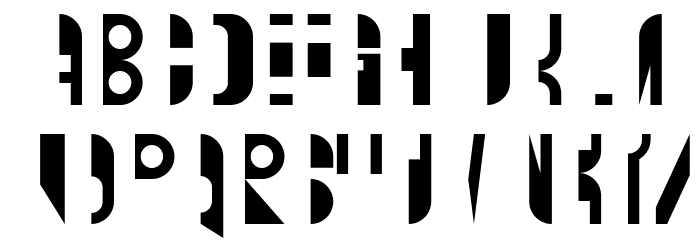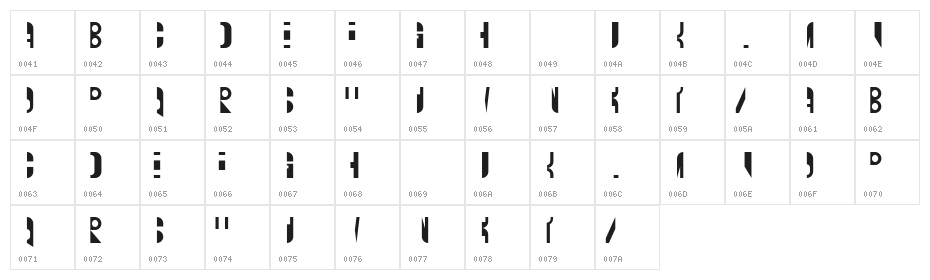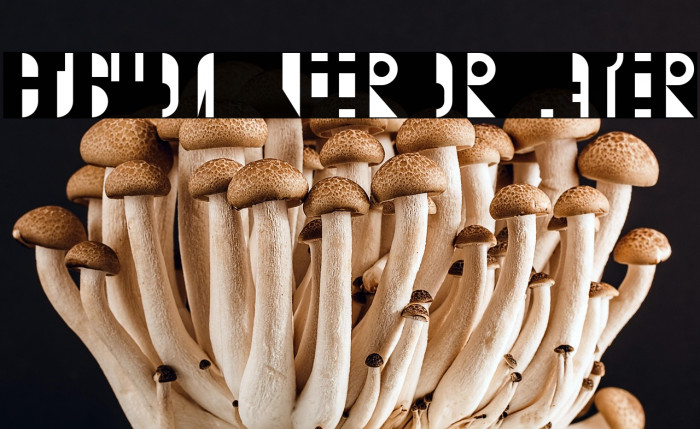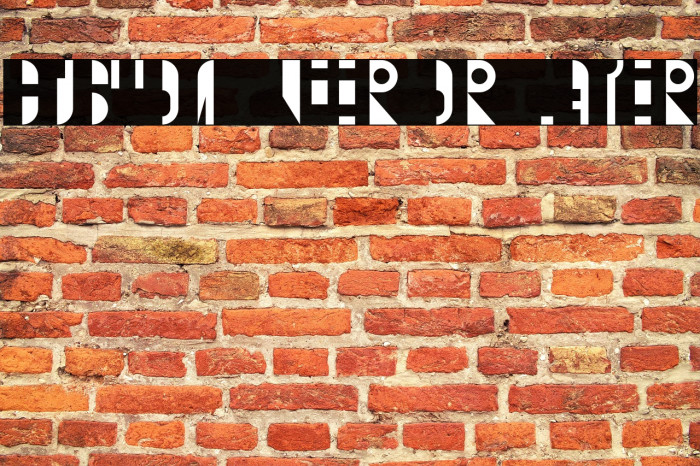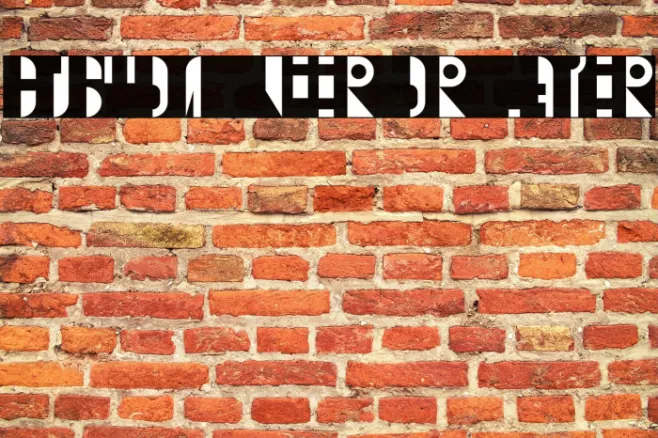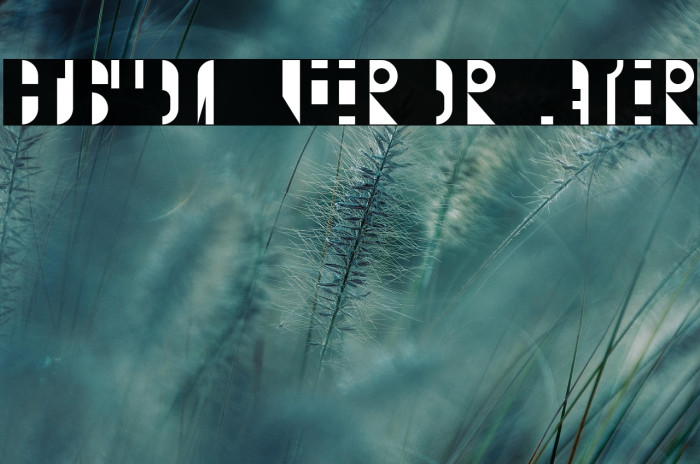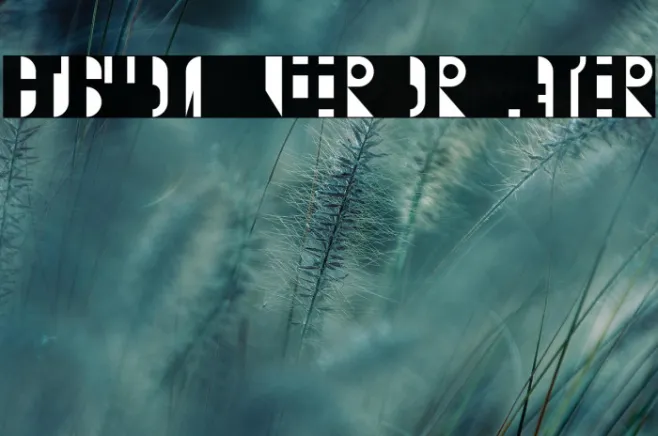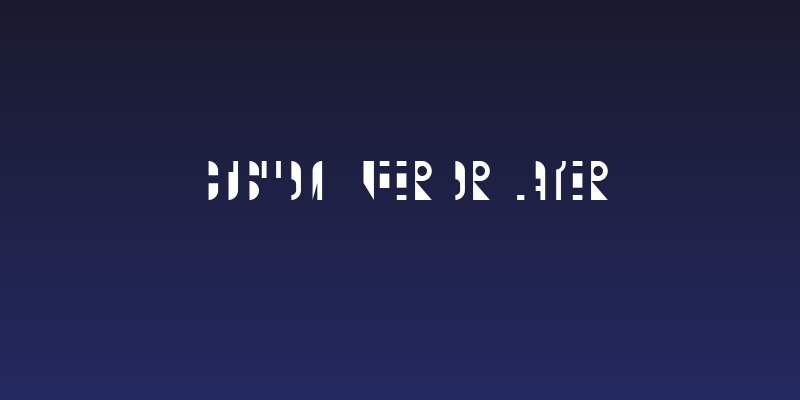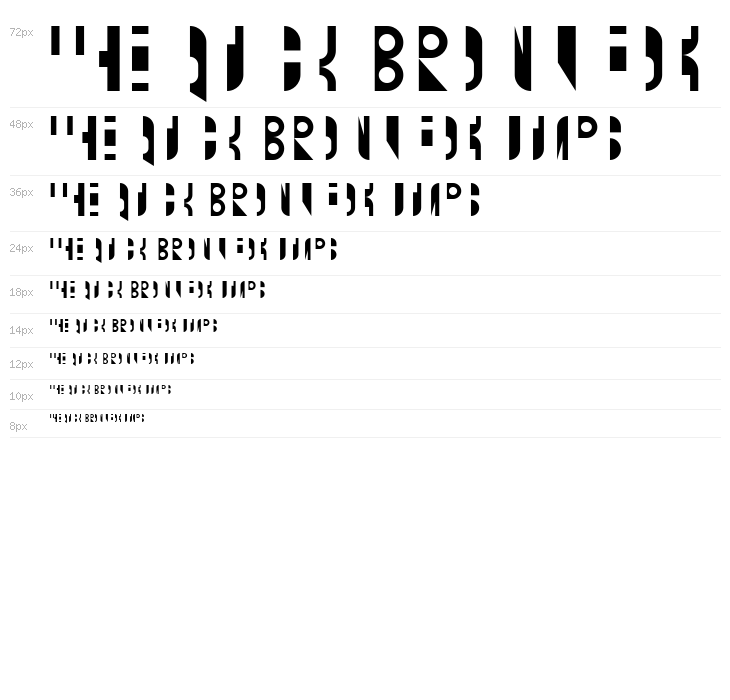
Custom Inferior Layer Font
Custom Inferior Layer Description
This font presents a highly stylized and abstract design, characterized by its bold, geometric shapes and sharp angles. Each character is crafted with a unique combination of solid blocks and negative space, creating a striking visual impact. The font's design leans heavily on modernist principles, with a focus on minimalism and abstraction. The uppercase and lowercase letters share a consistent style, emphasizing uniformity and cohesion. Numbers and special characters are equally bold and distinctive, maintaining the overall aesthetic. The font's avant-garde appearance makes it suitable for projects that require a strong visual statement.